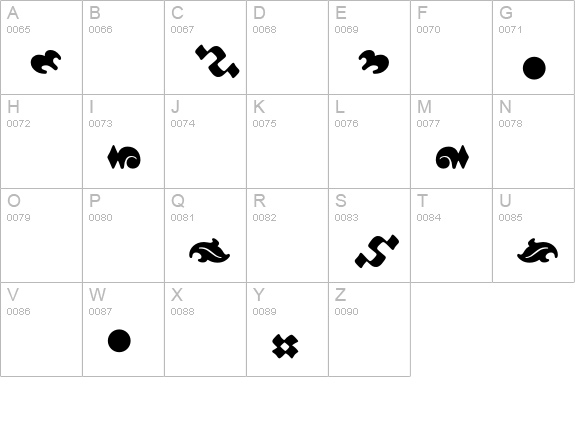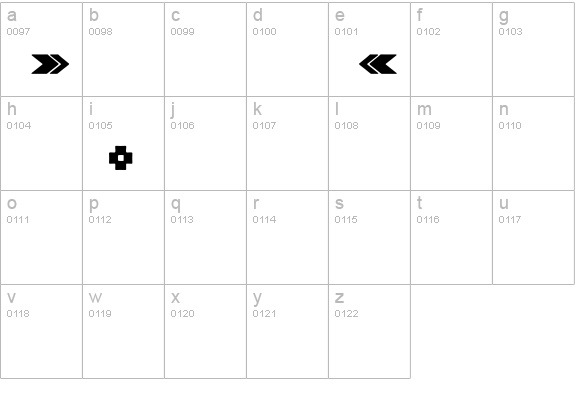
Berlinsans-BoldDingbats Font Details
Berlinsans-BoldDingbats is a unique and eye-catching font that adds a touch of creativity to any design project. This bold and dynamic typeface features a collection of stylish and modern dingbats, perfect for adding decorative elements to your work. Whether you're designing a poster, invitation, or logo, Berlinsans-BoldDingbats will help you make a statement. The best part? This font is completely free to download at FontsMarket.com. With its sleek and contemporary design, Berlinsans-BoldDingbats is sure to stand out and make a lasting impression. Add a touch of flair to your designs with this stunning font today!